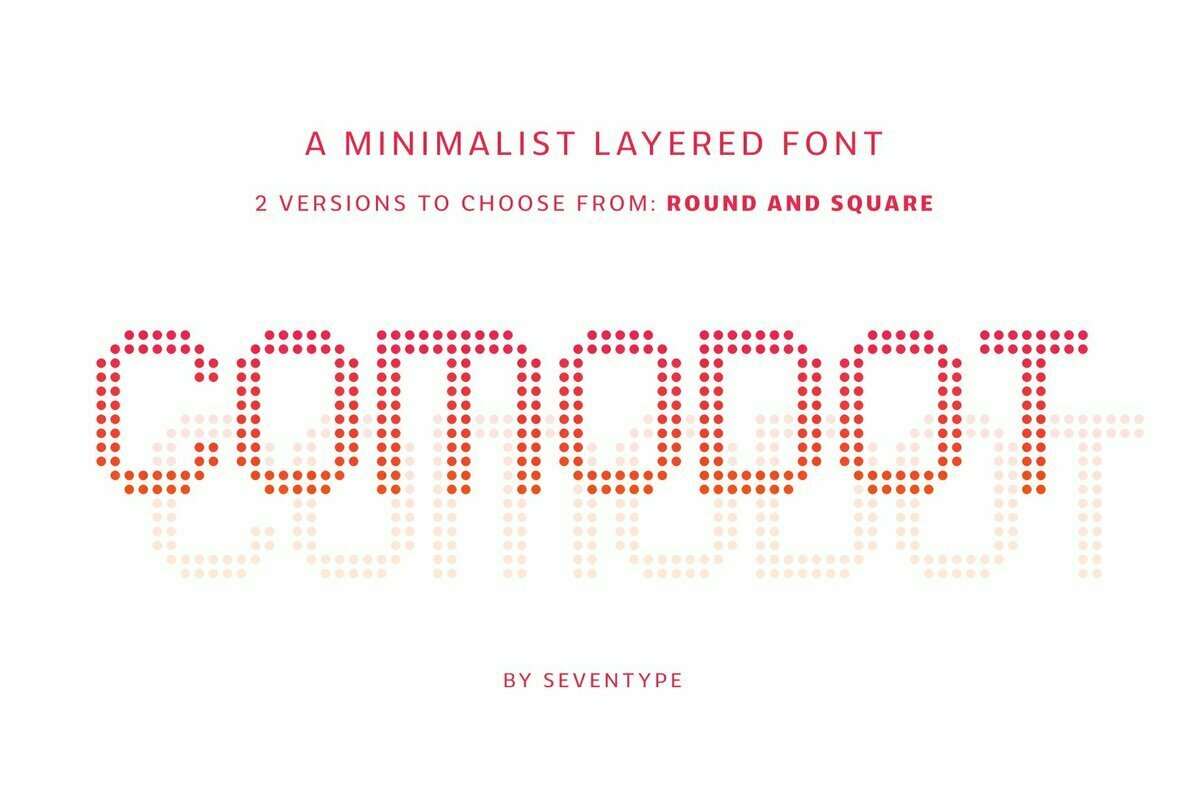
Comodot Font
Comodot Font is perfect for retro gaming branding, vintage computer museum exhibitions, 8-bit style merchandise, nostalgic tech startup logos, pixel art publications, and classic arcade game interfaces. This nostalgic typeface works exceptionally well in retro electronics packaging, vintage computing magazines, and old-school technology brand communications.
What makes Comodot Font so exciting is its authentic vintage computing character that perfectly captures the essence of early personal computer aesthetics. The font features pixelated letterforms with distinctive dot-matrix influences and classic terminal styling that evokes the golden age of home computing. Its retro-tech aesthetic demonstrates exceptional attention to computing history, making it ideal for brands seeking to convey nostalgia, innovation heritage, and authentic vintage technology appeal.
Comodot Font comes in multiple style variations including Regular, Bold, Outline, and Pixelated versions. The font family also includes classic computing symbols, terminal characters, and retro-tech ornaments that enhance the vintage computing quality and provide extensive creative possibilities for nostalgic design applications.
This captivating typeface brings computing nostalgia into contemporary design projects, offering designers an authentic tool for creating memorable retro-tech identities. The Comodot Font Free Download provides an excellent opportunity to explore its vintage character and nostalgic applications before making a purchase decision. Whether you're designing for gaming companies, tech museums, or vintage-inspired brands, this font delivers unmatched retro authenticity.
The font's bitmap-inspired construction ensures excellent screen readability while preserving its distinctive vintage computing appeal across various digital and print applications. Professional designers appreciate its comprehensive character support and specialized retro features that maintain historical accuracy in vintage technology contexts.
Comodot Font has established itself as the preferred choice among creative professionals working with retro gaming and vintage technology brands. Its ability to convey computing nostalgia and authentic vintage appeal makes it an invaluable asset for organizations seeking to establish genuine connections with audiences who appreciate classic technology aesthetics.